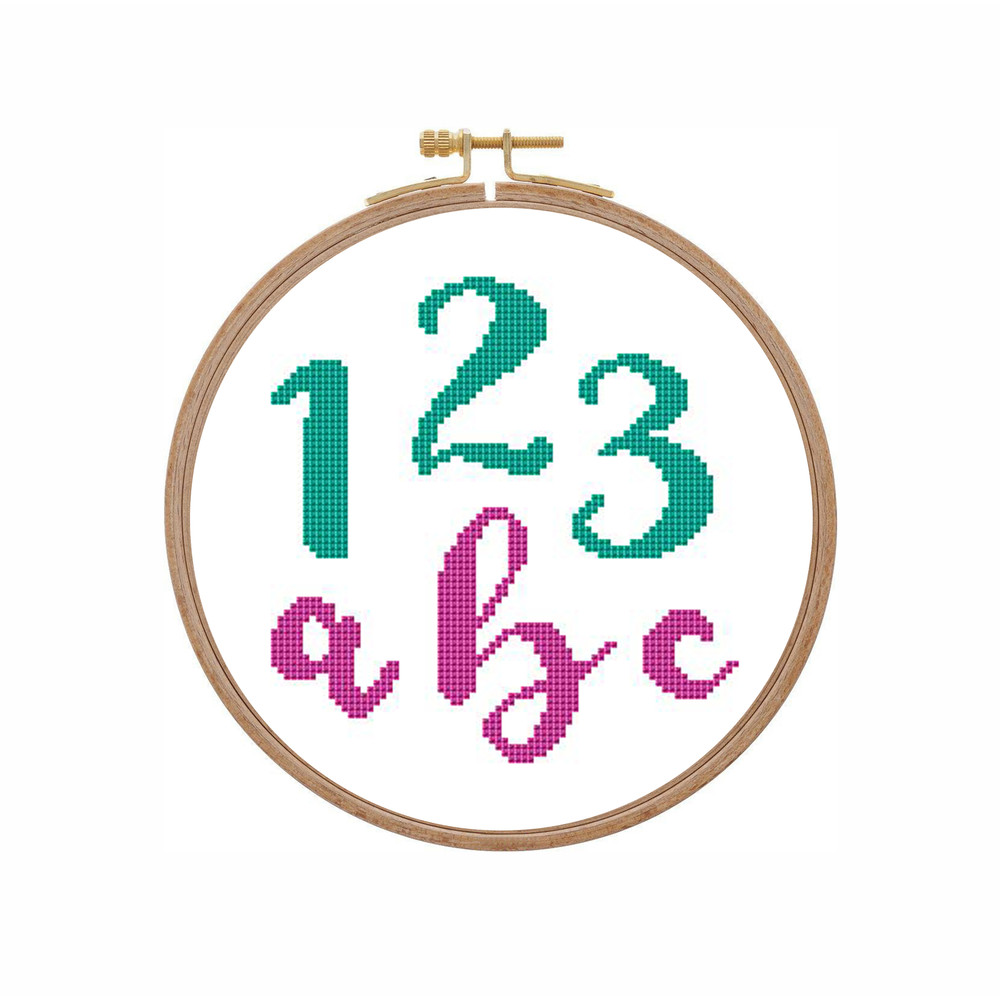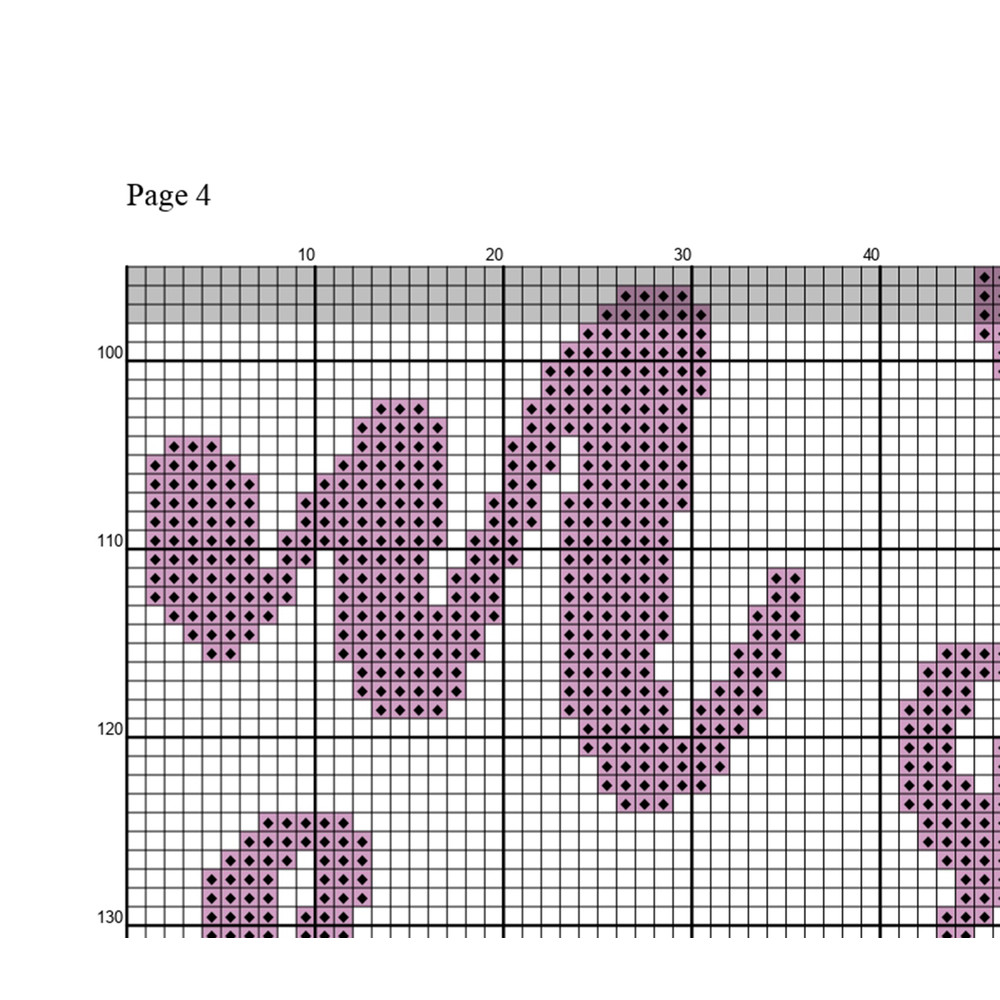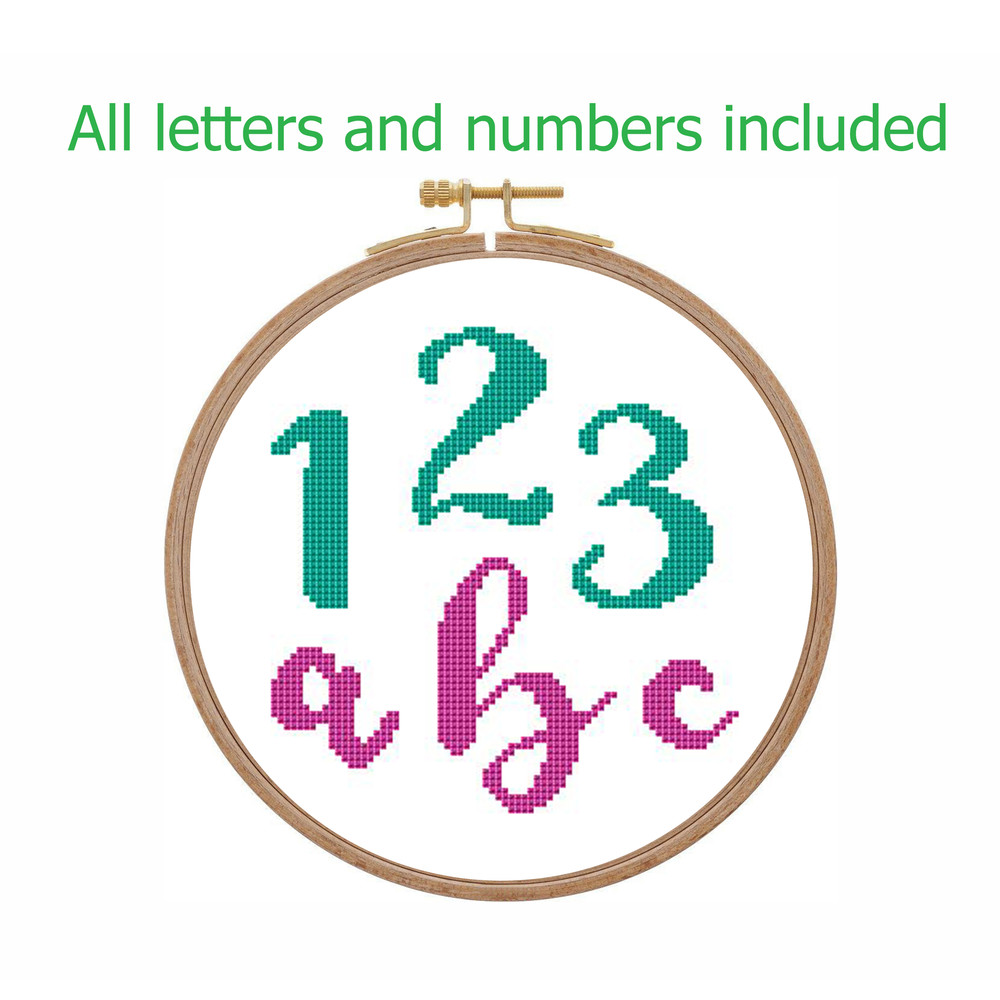
Cursive alphabet cross stitch pattern modern Counted calligraphy font cross stitch PDF Handwriting letters and numbers
Easy to follow Calligraphy handwriting alphabet cross stitch pattern for letters and numbers. Will be great for designs for personalized gifts for Christmas, Valentines day, wedding anniversary and any other occasions
ALL LETTERS AND NUMBERS INCLUDED
*Stitches: sizes for some letters (each letter and number has different size to imitate handwriting)
"b" 34w 40h
"f" 29w 45h
"c" 25w 14h
numbers about 30 stitches height